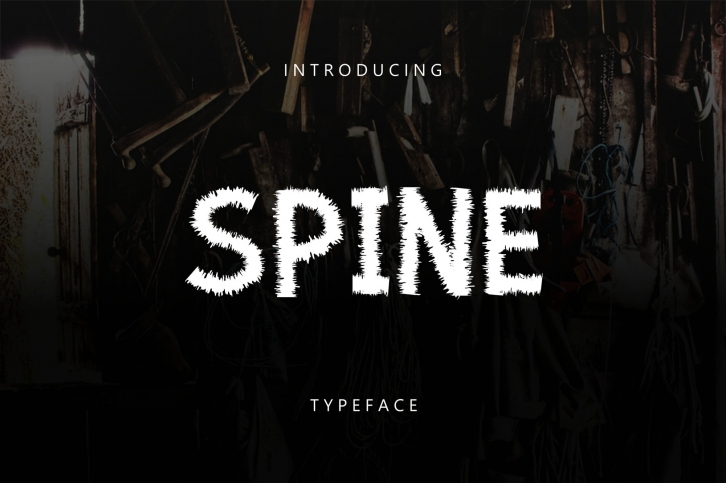
Spine Typeface Font Download
Spine Typeface is a trendy and unique font with an authentic style. It was designed by Graphicfresh and it's a great choice for creative people who need such a font. It was released on September 4, 2016 and the file size is 11.51 MB. Spine Typeface will add an organic vibe to any design idea!